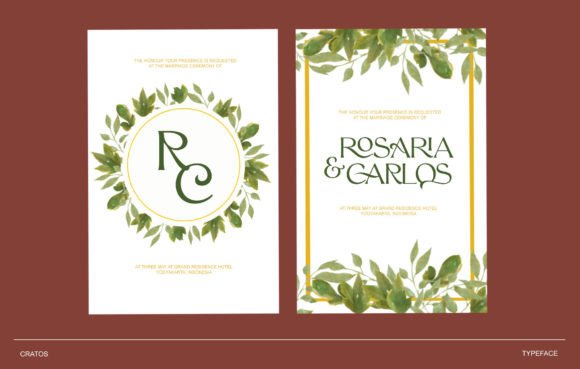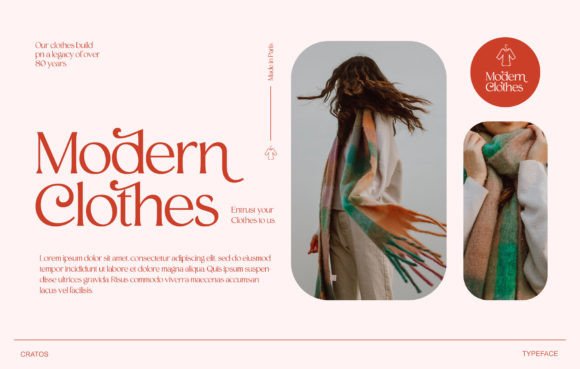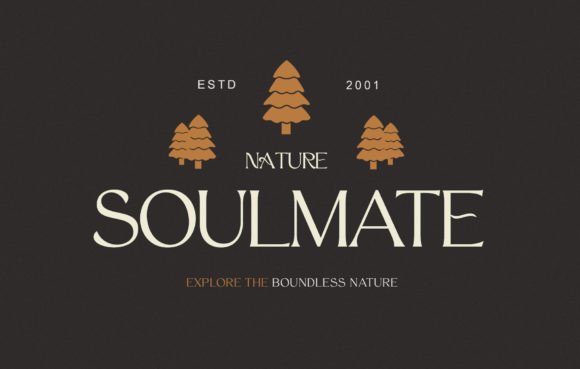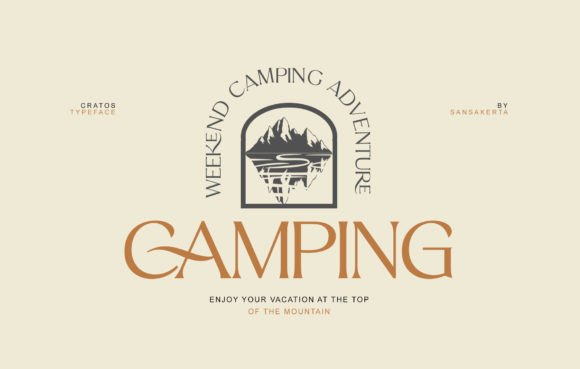
Cratos Font: Elevate Your Designs with Elegance and Boldness
Are you tired of using the same old fonts in your designs? Look no further than Cratos Font, an elegant and bold serif font that is sure to take your creations to the next level. With its incredibly versatile style, Cratos Font is perfect for a wide range of design projects, from wedding invitations and stationery to social media posts and more.
The Perfect Blend of Elegance and Boldness
Cratos Font is a masterful blend of elegance and boldness, making it the perfect choice for designers and crafters who want to create stunning visual content. Its serif design adds a touch of sophistication and refinement, while its bold lines ensure that your message is loud and clear. Whether you’re designing for print or digital, Cratos Font is sure to make a lasting impression.
One of the best things about Cratos Font is its incredible versatility. This font can be used for a wide range of design projects, including:
- Wedding invitations and stationery: Add a touch of elegance and sophistication to your wedding designs with Cratos Font.
- Social media posts: Make your social media posts stand out from the crowd with Cratos Font’s bold and eye-catching design.
- Stationery and branding: Use Cratos Font to create beautiful stationery and branding materials that reflect your brand’s personality.
- Signage and displays: Cratos Font is perfect for creating eye-catching signage and displays that grab attention.
Why Choose Cratos Font?
So why choose Cratos Font over other fonts on the market? Here are just a few reasons:
- Unique and distinctive design: Cratos Font has a unique and distinctive design that sets it apart from other fonts.
- Highly legible: Despite its bold design, Cratos Font is highly legible, making it perfect for use in a wide range of design projects.
- Easy to use: Cratos Font is easy to use and can be easily integrated into your design workflow.
- Constantly updated: The Cratos Font team is constantly updating and improving the font to ensure that it meets the needs of designers and crafters.
Tips for Using Cratos Font
Here are a few tips for using Cratos Font in your designs:
- Experiment with different sizes and colors: Cratos Font looks great in a wide range of sizes and colors, so don’t be afraid to experiment and find the perfect combination for your design.
- Pair with other fonts: Cratos Font pairs well with a wide range of other fonts, so try pairing it with different fonts to create a unique and interesting design.
- Use it for headlines and titles: Cratos Font is perfect for use in headlines and titles, where its bold design can really make an impact.
In conclusion, Cratos Font is an elegant and bold serif font that is perfect for designers and crafters who want to create stunning visual content. With its incredibly versatile style and wide range of design possibilities, Cratos Font is sure to become a favorite in your design toolkit. So why wait? Download Cratos Font today and start creating gorgeous wedding invitations, beautiful stationery art, eye-catching social media posts, and more!
Key Features of Cratos Font
- Elegant and bold serif design
- Incredibly versatile style
- Perfect for wedding invitations, stationery, social media posts, and more
- Highly legible
- Easy to use
Whether you’re a professional designer or a crafter, Cratos Font is the perfect choice for anyone looking to elevate their designs with elegance and boldness. So why not give it a try and see the difference it can make in your designs?